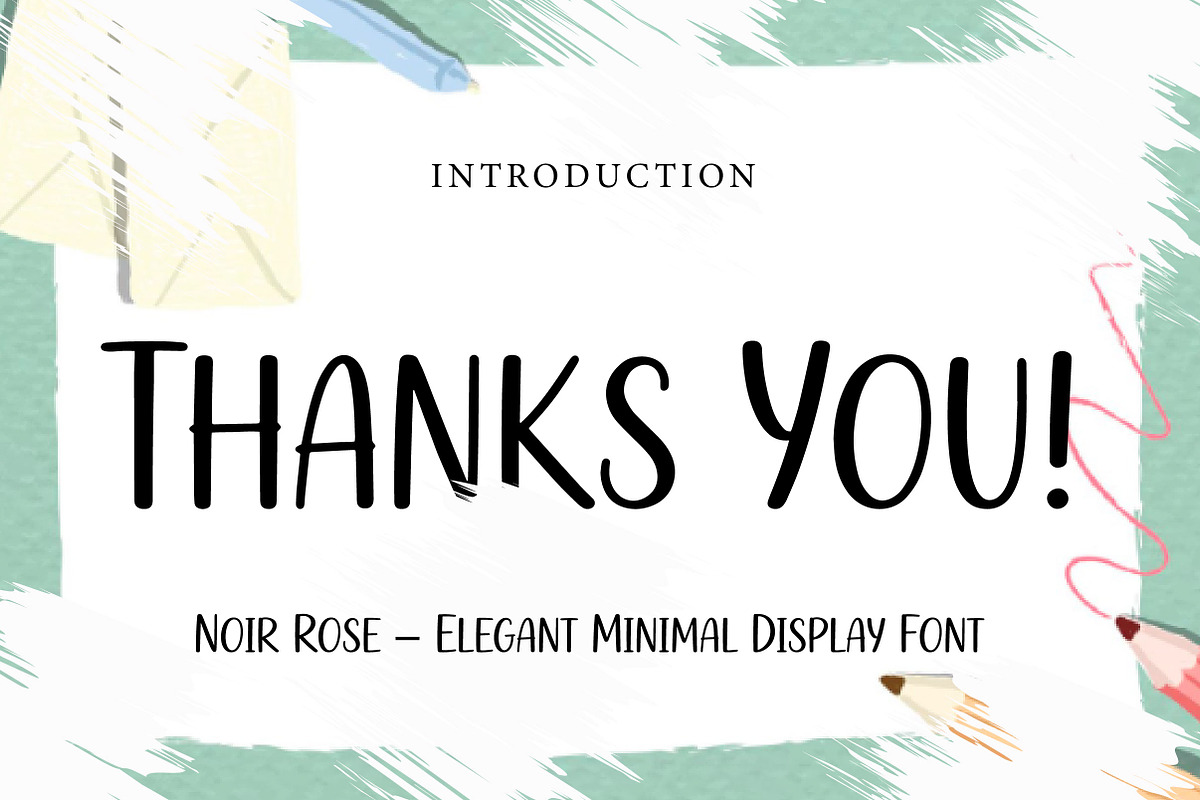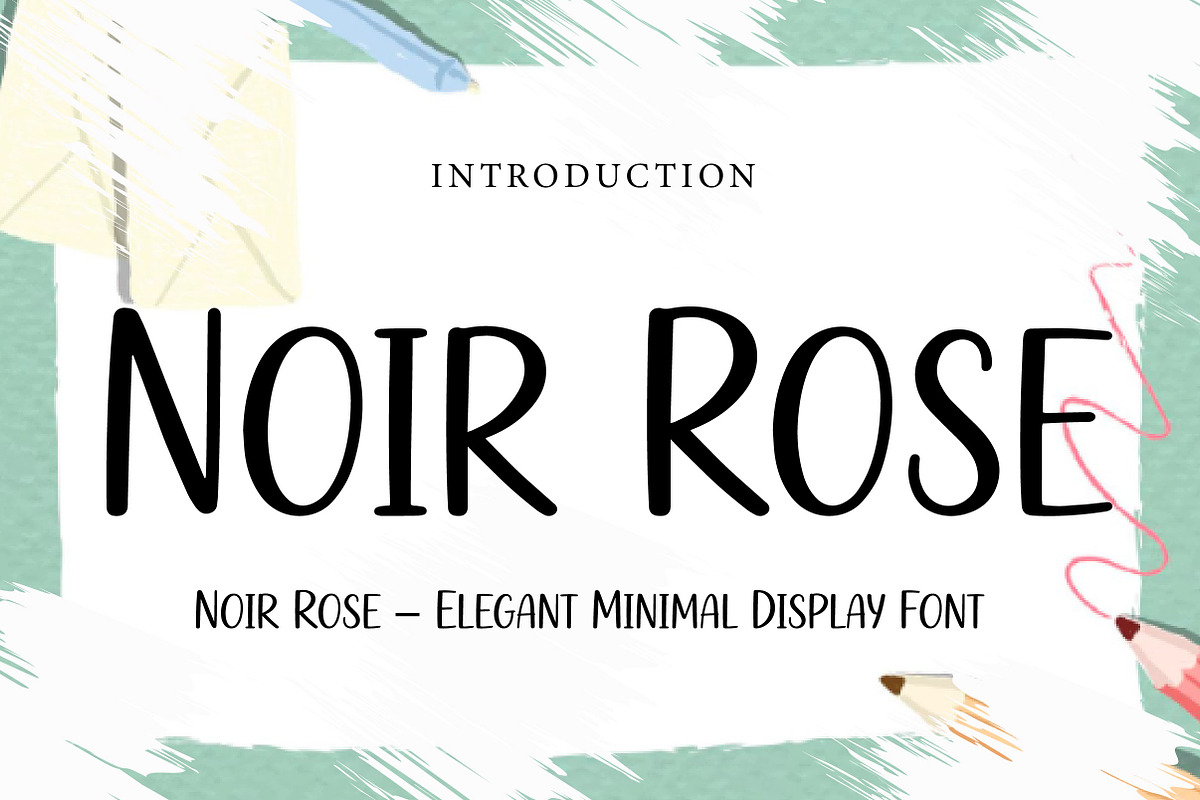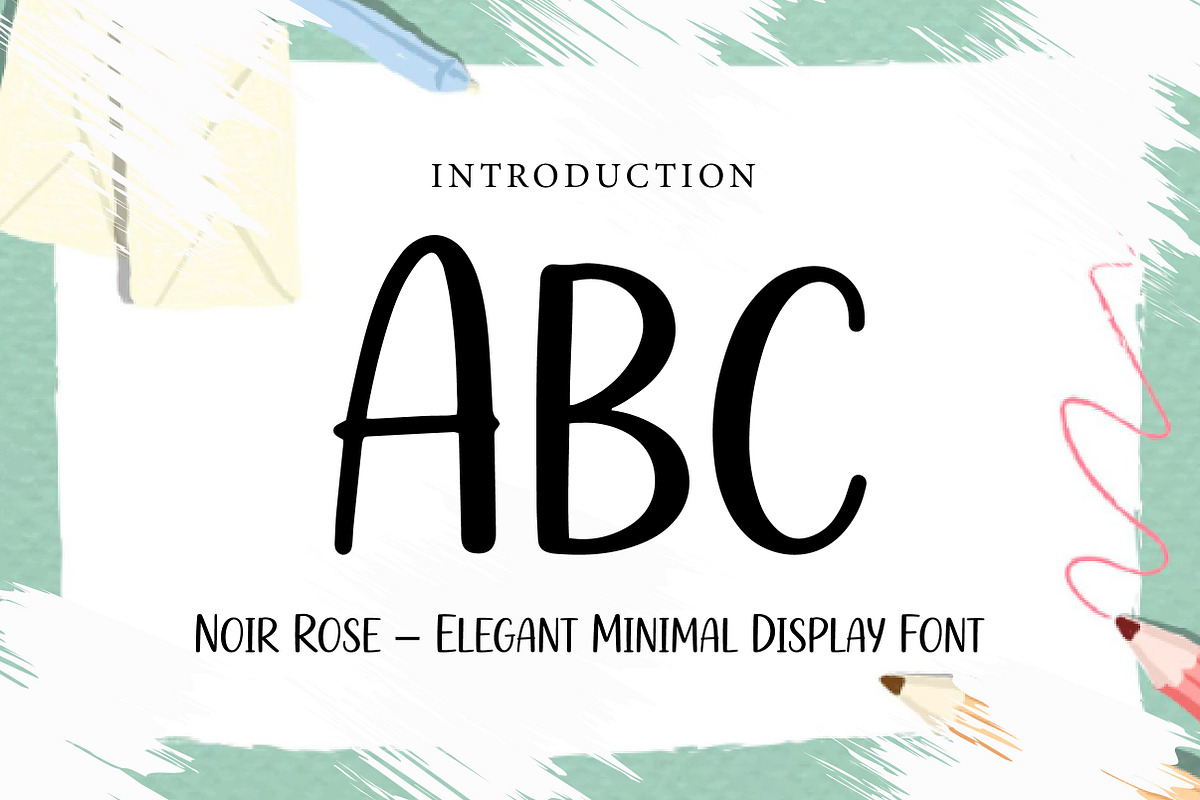
Noir Rose
Noir Rose – Elegant Minimal Display Font
Noir Rose is an elegant, minimal, and artistic display font, perfect for branding, editorial design, logos, invitations, packaging, and sophisticated creative projects.
Noir Rose is a refined minimal display font designed to bring elegance, simplicity, and artistic charm to your typography. With its tall letterforms, clean lines, and handcrafted modern feel, this font creates a stylish and distinctive look that feels both graceful and contemporary.
Its light and sophisticated appearance makes Noir Rose perfect for projects that need a soft yet memorable visual identity. Whether you are designing branding, editorial layouts, logo concepts, wedding invitations, product packaging, social media graphics, or fashion-inspired visuals, this font helps your typography look clean, elegant, and expressive.
The slim structure adds a modern editorial touch while maintaining readability and personality. Suitable for both digital and print use, Noir Rose is an excellent choice for designers who want a font that feels minimal, artistic, and beautifully refined.
Perfect For Elegant branding Editorial and magazine design Logo design Wedding invitations Product packaging Social media graphics Fashion and beauty projects Website headers Premium stationery Artistic typography layouts Font Features Uppercase letters Lowercase letters Numbers & punctuation Elegant minimal style Tall and artistic letterforms Clean and modern appearance Perfect for display use